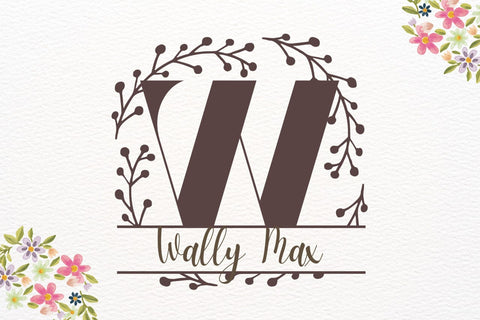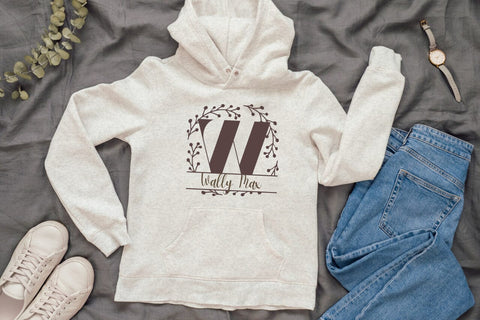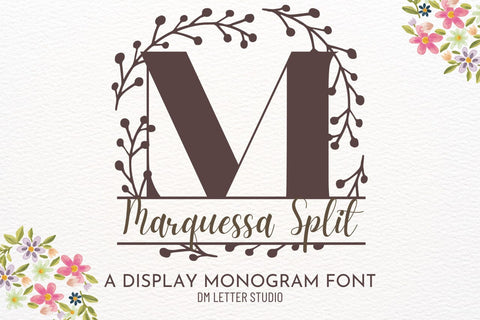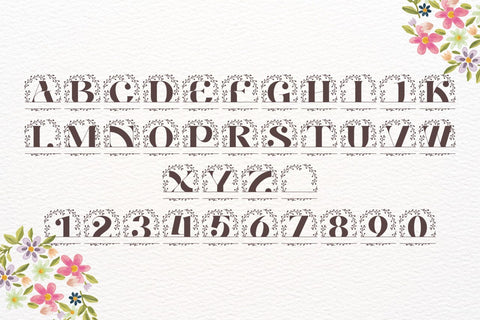
Marquessa Split Monogram Font
Meet Marquessa Split Monogram Font
Marquessa Split Monogram Font turns initials into elegant, gift-ready nameplates in seconds. The letterforms feel poised and refined, while a crisp horizontal split creates the perfect space for names, dates, or short words. Because spacing stays even and counters remain open, results look polished on everything from tiny tags to large wall art. Use it for wedding gifts, family signs, door hangers, tumblers, ornaments, and boutique packaging. Moreover, this split monogram font pairs beautifully with a clean sans or a light script, so every layout stays readable and premium.
Where this split monogram font shines
Set a single initial, then place the family name inside the split. Next, try couple names for keepsakes, venue names for signage, or short words like “Welcome” and “Home.” Since proportions favor clarity, designs scale smoothly for Cricut, Silhouette, Glowforge, laser projects, and vinyl cutting. As a result, you can batch personalization quickly for markets and storefronts without sacrificing quality.
Design tips for Marquessa Split Monogram
Keep the main initial large to showcase the graceful structure. Place the split line at center or slightly low for a steady baseline. Meanwhile, choose a simple supporting font for the name inside the split to protect legibility. Because the look is airy, metallic accents and natural textures add instant value—think champagne foil on soft blush, or matte black on walnut wood. However, keep names concise so everything stays clear at small sizes.
Uppercase alphabet optimized for split monograms
Matching lowercase, numbers, punctuation
Curves tuned for engraving, foil, laser cutting, and clean vinyl paths
Why makers choose this split monogram font
You want fast personalization that still looks custom. Marquessa Split Monogram Font delivers. It helps you produce consistent, high-end name designs in minutes while keeping your shop’s style cohesive across many product types.